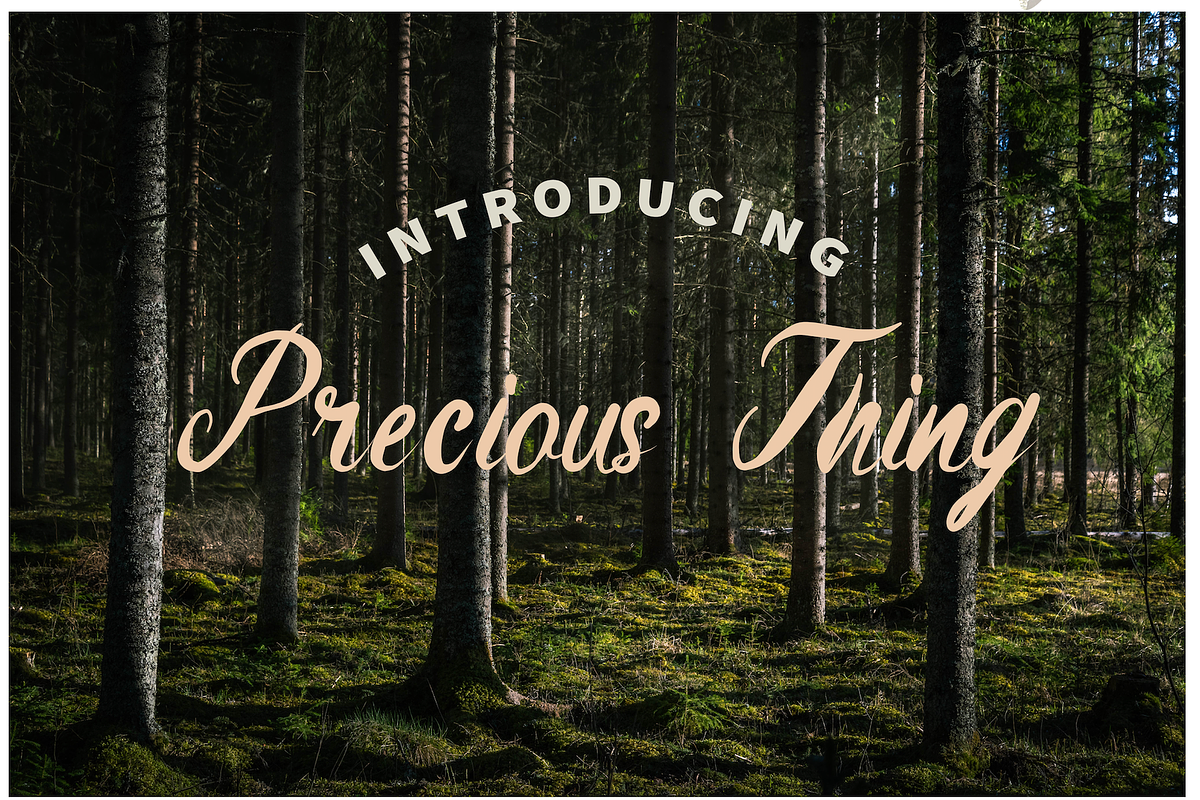
Cursive hand written font Free Download
Cursive Handwritten Font Free Download
The Cursive Handwritten Font Free Download is a beautifully crafted script typeface that adds a personal, flowing touch to any design. Perfect for creating invitations, greeting cards, logos, and other creative projects, this font brings the elegance of handwritten calligraphy to your designs. Please note, for commercial use, a license must be purchased. You can download it for free for testing purposes.
With its graceful, curving strokes, the Cursive Handwritten Font Free Download is ideal for designs that require a personal and sophisticated flair. Whether you're working on wedding stationery, a personal brand, or a social media graphic, this font adds a touch of creativity and warmth to your work.